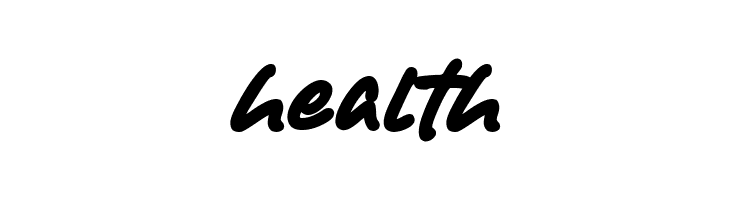
SC Tina's Baby Shower Font
Font by Andrew Hart - dirt2.com
A playful and whimsical font with bold, slender strokes and decorative elements.
Boring Showers Font
A playful, handwritten font with bold strokes and a casual style.
Baby Shower Font
Font by Perspectype Studio
A playful, rounded font with bold, smooth curves and a friendly appearance.
Shower Flower Font
A playful, flower-themed decorative font with bold, rounded characters.
dream*showers Regular Font
Font by Brittney Murphy Design
A bold, flowing script font with elegant curves and dynamic slant.
Shower Font
A bold, rounded, and modern font with a playful aesthetic.
Bates Shower Font
imagex - www.imagex-fonts.com
A bold, jagged font with a distressed, horror-themed aesthetic.
Rain Shower Font
Khurasan
A bold, textured font with a hand-drawn, artistic style.
April Showers Medium Font
A playful, hand-drawn font with tall, narrow characters and whimsical details.
Flower Shower Font
Frogii`s Fonts
Hand-drawn floral illustrations with intricate detail.
Golden Showers Font
Font by www.lifewithouttaffy.com
A bold, distressed font with an edgy, grunge-like appearance.
Bridal Shower Monoline Script Light Font
Yoga Letter
A delicate and flowing monoline script font with a romantic and sophisticated style.
Babies Shower Font
A bold, handwritten font with a playful and dynamic style.
Bates Shower Font
A bold, jagged font with a raw, brush-like style.
Water Shower Regular Font
A playful and modern handwritten font with bold, flowing letterforms.
Poppy Shower Font
A graceful and flowing script font with elegant curves and modern flair.
Baby Shower Time Font
Font by Excellent Ritma Florendia
A casual, handwritten font with rounded, playful characters.